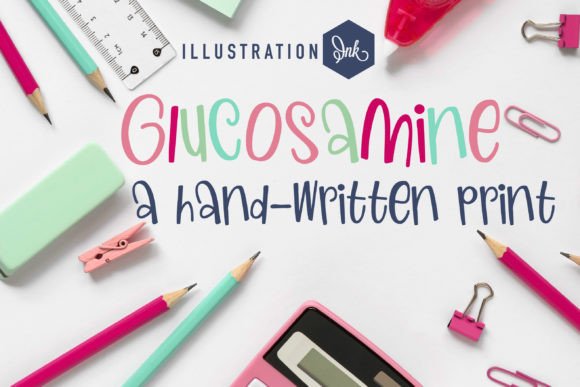
Unleash the Whimsical Magic of Glucosamine: A Script Font that Captivates the Heart
In a world saturated with mundane and monotonous designs, Glucosamine emerges as a breath of fresh air – an enchanting script font that ignites the imagination and compels you to step into a realm of limitless creativity. With its youthful spirit and whimsical charm, Glucosamine embodies the innocence and wonder of childhood, promising to infuse your projects with a touch of pure delight.
Picture this: the swirling strokes of Glucosamine, akin to the playful scribbles of a carefree child, dance across your screen, leaving a trail of visual enchantment. Its lively personality, reminiscent of a mischievous sprite, enlivens every letter, imbuing them with an irrepressible energy that leaps off the page.
This hand-crafted sans serif is a testament to the beauty of imperfection, embracing the natural variations of human handwriting. Each character bears its unique quirks and idiosyncrasies, creating a sense of authenticity and warmth that draws your audience in. Glucosamine is not just a font; it's an invitation to embark on a whimsical adventure, where imagination reigns supreme.
With Glucosamine at your fingertips, a myriad of creative possibilities unfolds. Design eye-catching greeting cards that transport your recipients to a world of wonder, with messages that dance and sing before their eyes. Craft captivating headlines that demand attention, their playful curves and twirls enticing readers to explore further. Unleash your inner child and create whimsical posters and flyers that spark curiosity and spread joy wherever they go.
Glucosamine's versatility extends beyond the digital realm, beckoning you to explore its boundless potential in physical applications. Embroider its enchanting characters onto T-shirts and tote bags, transforming everyday items into wearable works of art. Etch its graceful shapes into wood or metal, creating personalized signs and home décor that radiate warmth and charm. The possibilities are endless, limited only by your imagination.
But what truly sets Glucosamine apart is its ability to connect with your audience on a deeper level. Its playful nature evokes a sense of nostalgia, reminding us of the carefree days of childhood when the world was full of wonder and anything was possible. It speaks to our inner child, rekindling that spark of creativity and imagination that often fades as we grow older.
With Glucosamine, your projects take on a new life, transcending mere design elements and becoming conduits of joy and inspiration. Embrace the whimsical magic of Glucosamine today, and let your creativity soar to unimaginable heights.